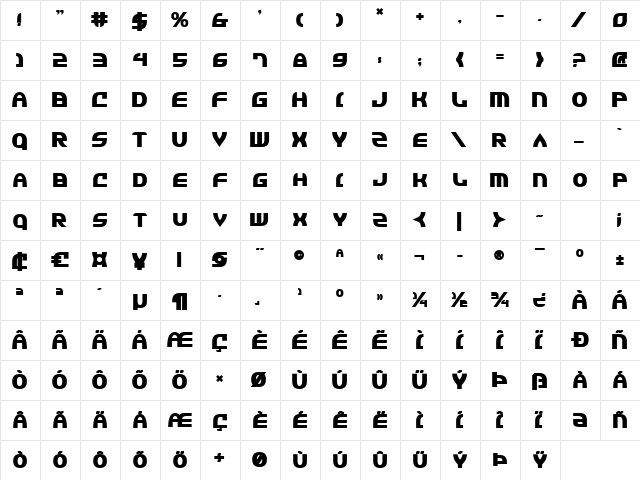
Jannisaries Bold Bold
Design Context for Jannisaries Bold Typeface
Jannisaries Bold is a composed and adaptable typeface that performs quietly and consistently across a wide range of design contexts. Its bold stroke weight gives it real presence on the page.